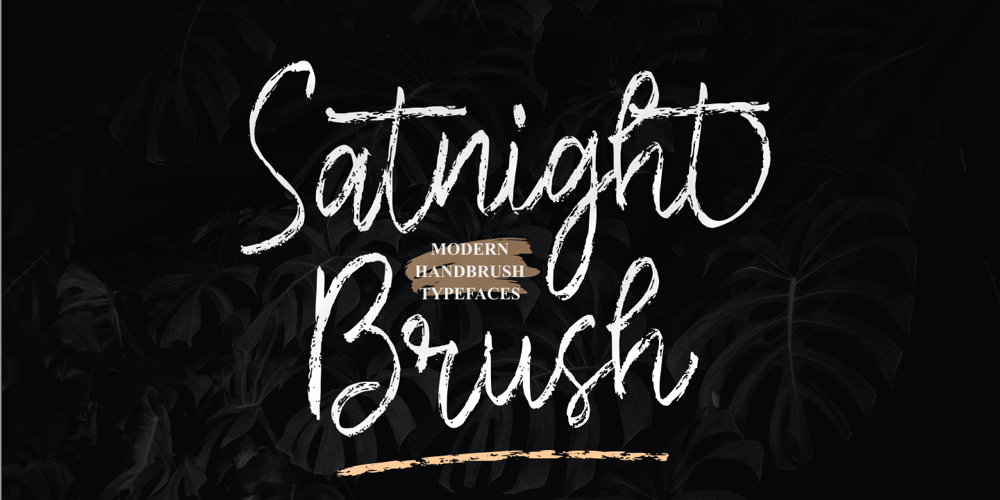
Satnight Brush Font Family was designed by Doni Purwoko and published by Zeenesia Studio. Satnight Brush contains 1 styles and family package options. Proudly present new our font Satnight Brush.Satnight Brush is a Handwritten Font with less texture. I made Neutral Autumn on smooth paper, so that the texture that is produced is not too much. This is perfect if you don’t really like texturing fonts too much.Satnight Brush suitable for various projects such as stationery invitations, social media, logos, weddings, branding, graphic design with the addition of several binders and swashes. and can be combined with various types of serif fonts to perfect the project you want to work on.We hope you enjoy the font, please feel free to comment if you have any thoughts or feedback. Or simply send me a PM or email me.Thanks for purchasing and have fun!